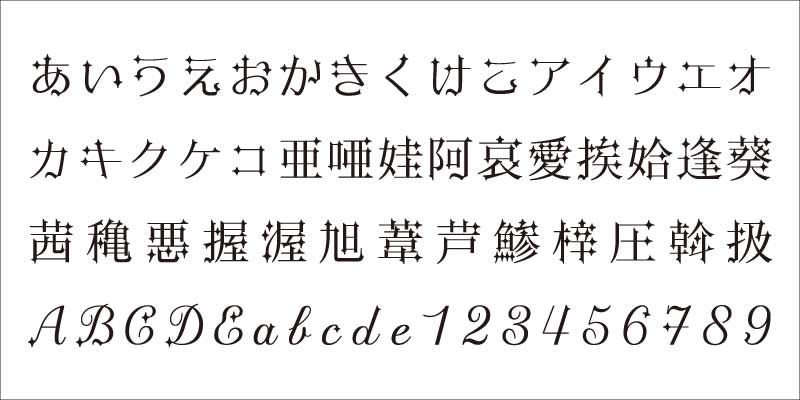
VDL-KuroMincho Font Free Download
VDL-KuroMincho Font Free Download is a classic, elegant Japanese Mincho-style typeface with modern refinements. It blends traditional calligraphy with a touch of contemporary design, making it perfect for high-quality print materials, cultural publications, editorial designs, and projects where sophistication and legibility are key.
VDL-KuroMincho Font Free Download features traditional serif detailing with a high contrast between thick and thin strokes, making it ideal for titles, headlines, and body text in both digital and print formats. The font supports a full range of Hiragana, Katakana, Kanji, and Latin characters, making it versatile for bilingual designs and projects that integrate both Japanese and Western text.
Elegant, timeless, and culturally rich—VDL-KuroMincho Font is the perfect choice when you want to convey a sense of refinement, tradition, and modern clarity in your design.